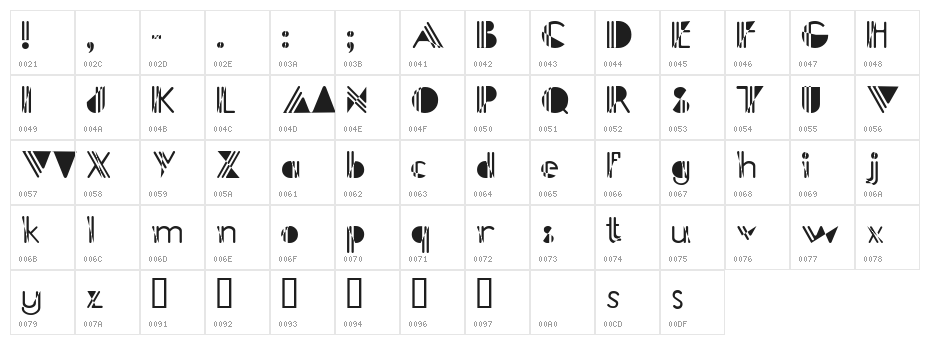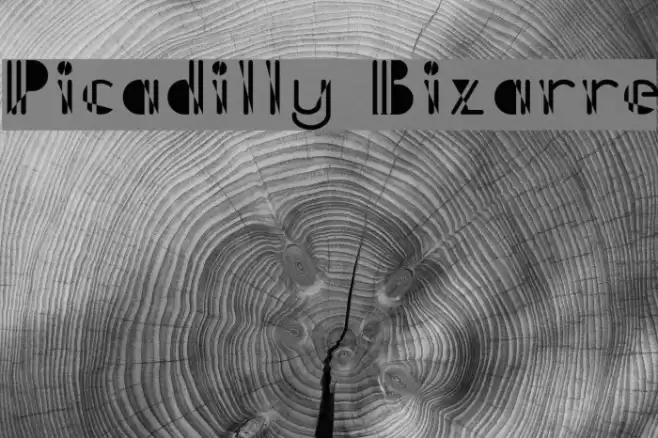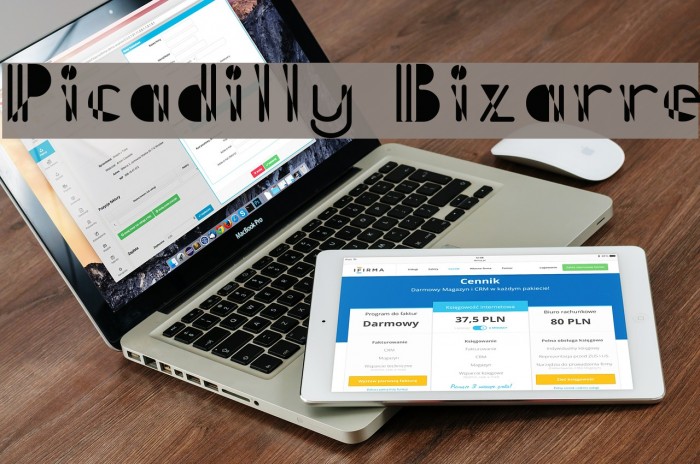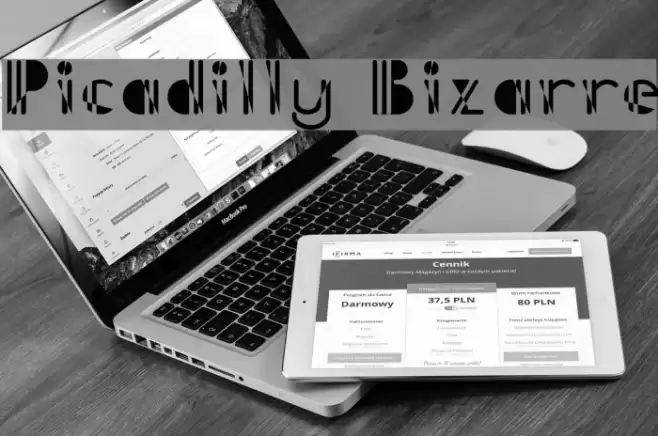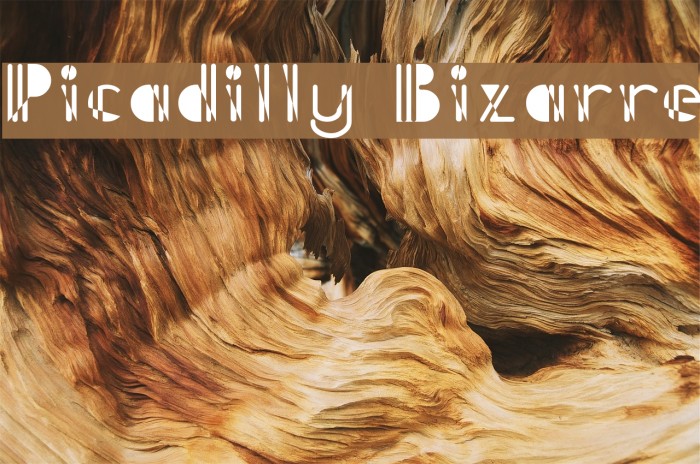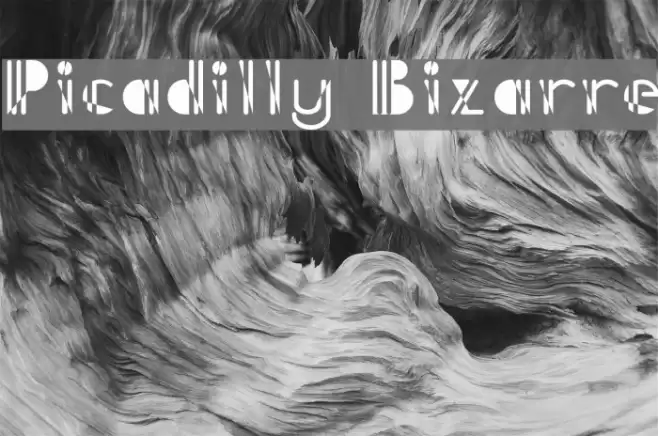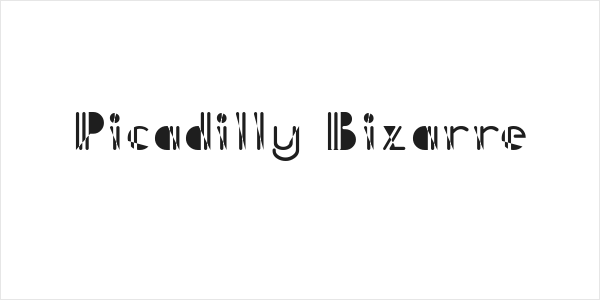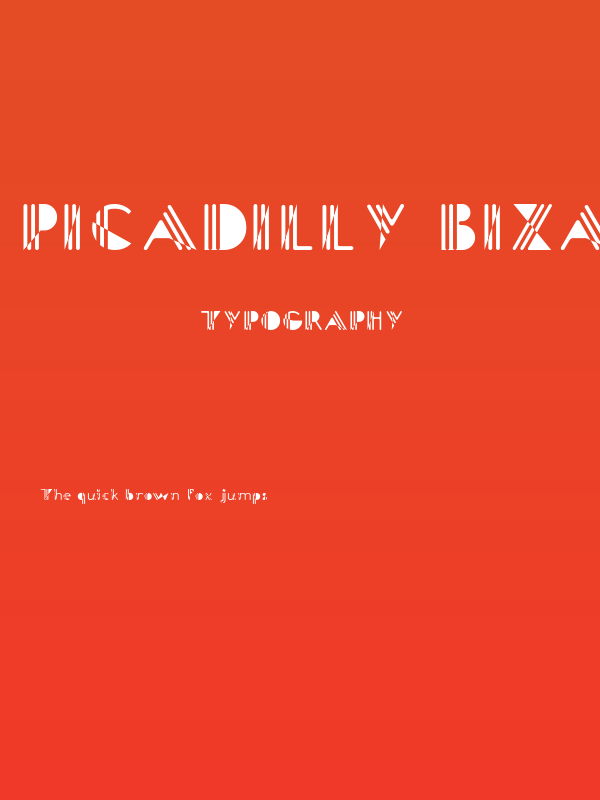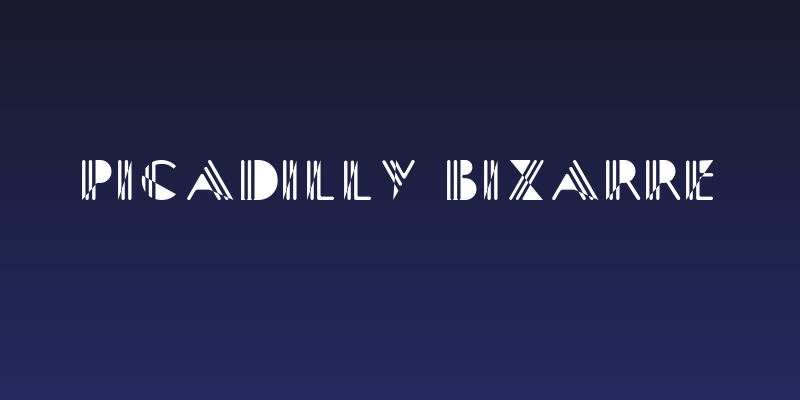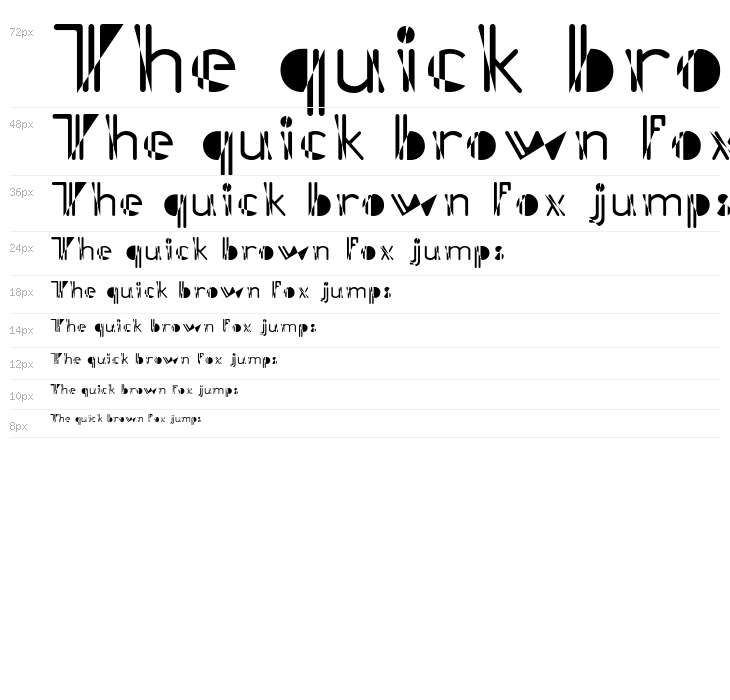
Picadilly Bizarre Font
Picadilly Bizarre Description
This font exhibits a highly decorative and avant-garde style, characterized by its unique geometric shapes and fragmented lines. Each letter is crafted with a combination of solid and striped patterns, creating a visually striking and modern appearance. The uppercase and lowercase letters maintain a consistent theme, with angular cuts and varying line thicknesses that add to its dynamic look. The numbers and special characters follow the same design principles, ensuring a cohesive aesthetic throughout. This font is perfect for projects that require a bold and unconventional statement, offering a distinct and memorable visual impact.